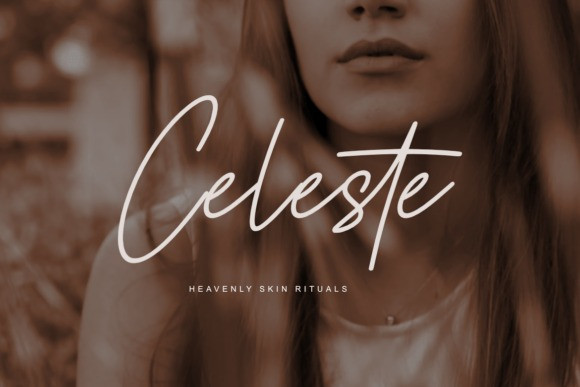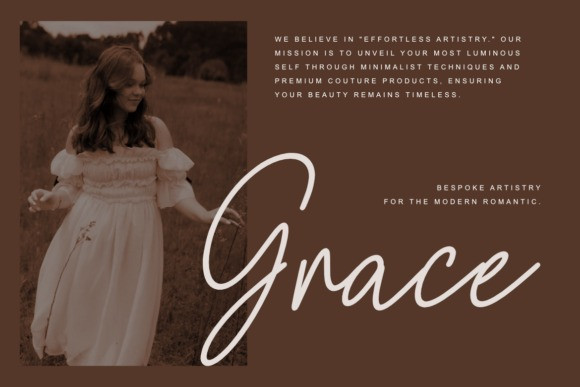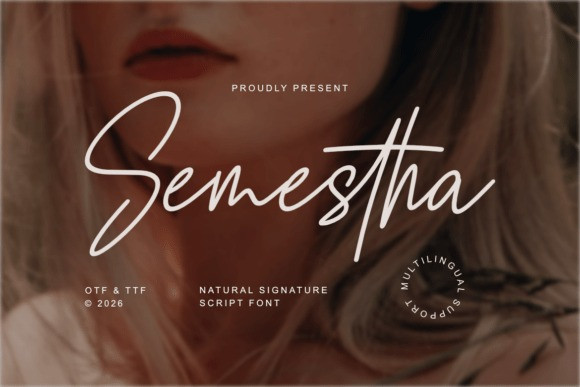
Semestha Font
Semestha Font is an elegant and flowing natural signature script font designed for high-impact and precise typography. With its refined script structure and clean, handwritten lines, this font is perfect for personal signatures, professional luxury branding, fashion logos, and high-end social media layouts. Its confident, sleek, and balanced design gives your visuals a striking, professional, and deeply personalized look. Provided in OTF and TTF formats with full multilingual support for maximum compatibility across all design platforms.